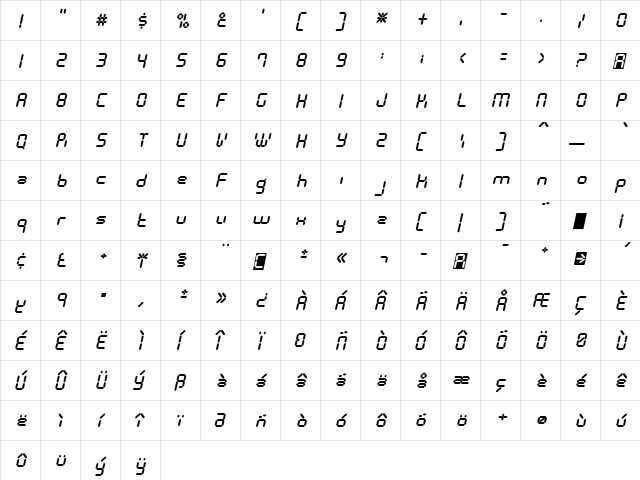
Calculus Medium Italic
Design Context for Calculus Typeface
Calculus takes a measured approach to typography — its balanced proportions and neutral character make it a reliable workhorse for both digital and print work. Its italic angle brings a sense of urgency and motion to the letterforms.
Pro Tip: Try Calculus for annotation and caption copy alongside an upright companion — the contrast in angle creates a dynamic but ordered typographic system.